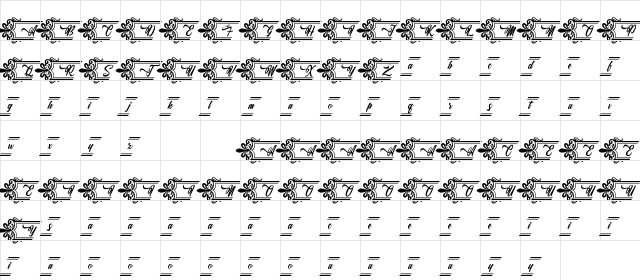
Clasicalderibbon Regular
| Foundry | Kotak Kuning Studio |
Design Context for Clasicalderibbon Typeface
Clasicalderibbon is a composed and adaptable typeface that performs quietly and consistently across a wide range of design contexts.